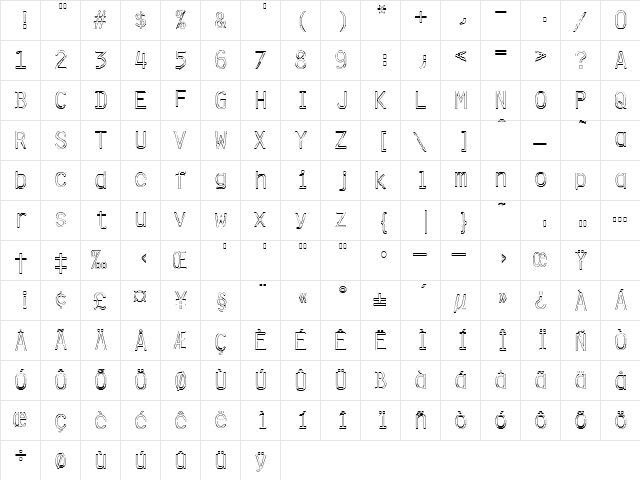
MyriadeOpen Regular
Design Context for MyriadeOpen Typeface
MyriadeOpen is a composed and adaptable typeface that performs quietly and consistently across a wide range of design contexts.